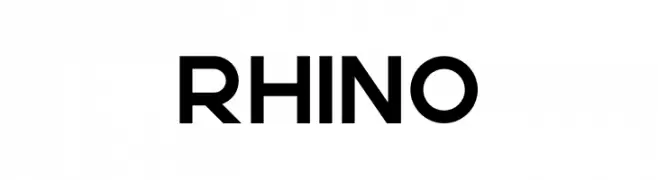
• Renata-Regular
A bold, fluid script font with interconnected letters and a lively, handwritten style.
• Retroholic - Demo
A bold, decorative script font with vintage flair and high contrast strokes.
• Returned
A dynamic and energetic script font with fluid, cursive letterforms.
• Rhino
A bold, geometric sans-serif font with a modern and clean design.
• Rhyme-Regular
A playful, bold font with exaggerated curves and angles.
• Richland-Regular
A fluid and elegant script font with a cursive, handwritten style.
• Ridiculous
A lively, cursive script font with bold, sweeping strokes and elegant curves.
• Rikabrush
A bold, brush-style font with a dynamic and artistic appearance.
• Rita Mouse
A playful and whimsical font with decorative elements and bold strokes.
• Riverside Sans
A bold, hand-drawn font with a rugged and impactful design.